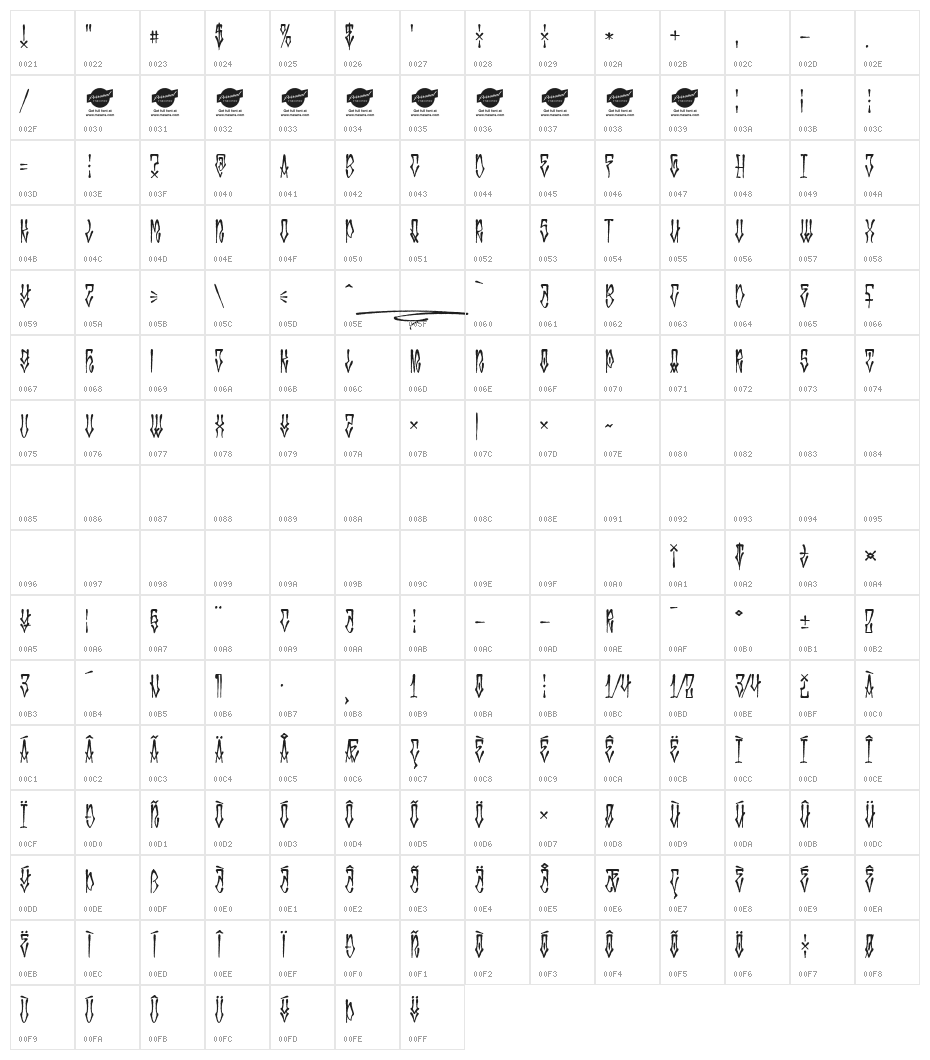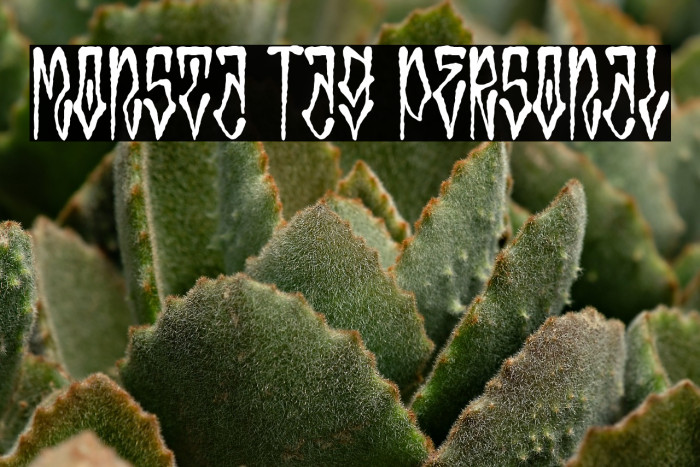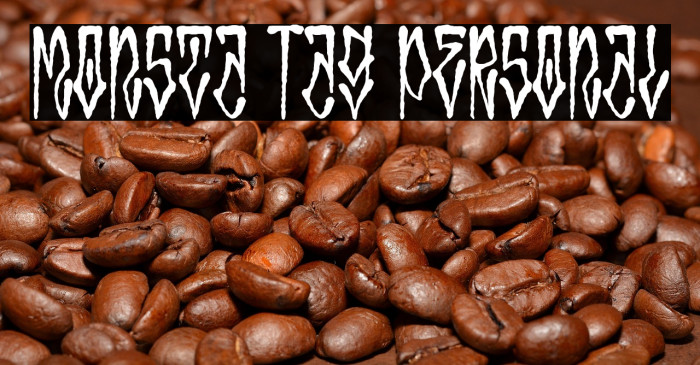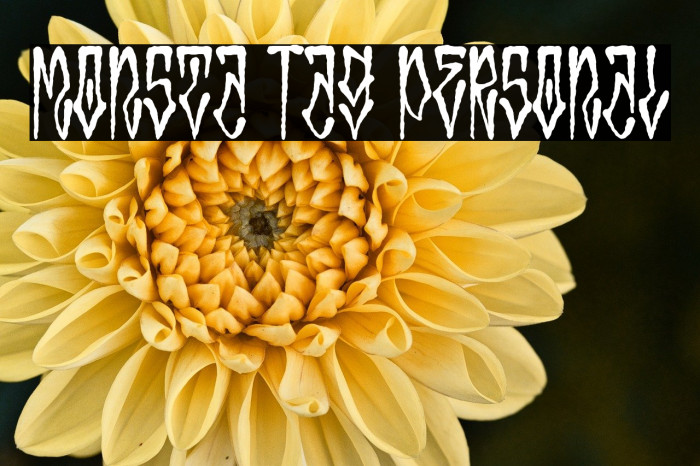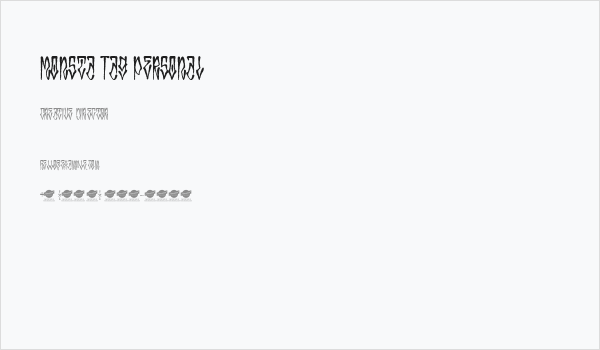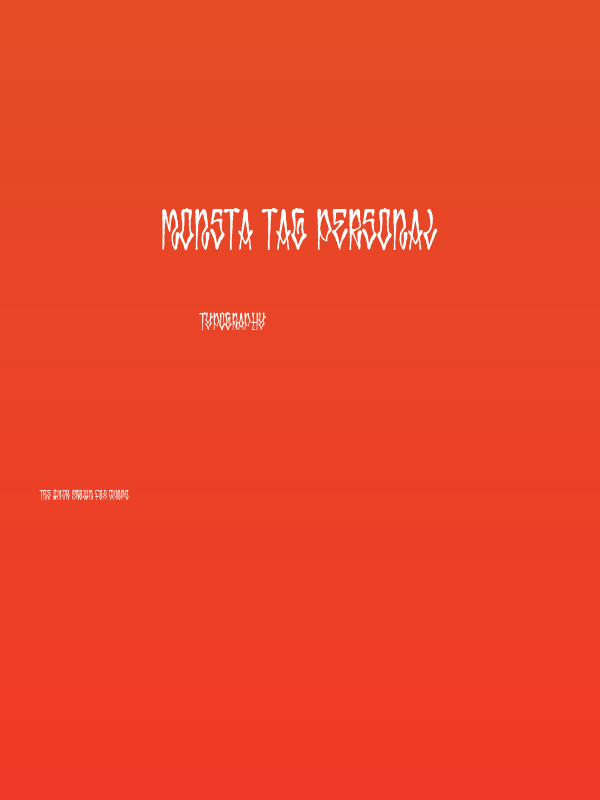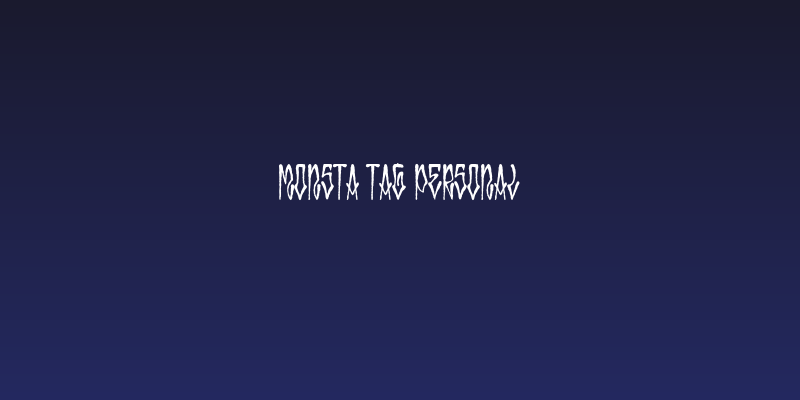
Monsta Tag Personal Font
Monsta Tag Personal Description
A highly stylized, jagged, graffiti-inspired font with sharp, angular strokes and irregular line thickness, evoking a hand-drawn, urban street art aesthetic. The characters are tall and narrow, with exaggerated ascenders and descenders, and a rough, textured appearance.
| Overall Style | Decorative, Urban, Graffiti, Edgy |
| Use Case | Headlines, Logos, Posters, Event Flyers |
| Proposed Projects | Street art posters, music album covers, skateboarding brands, urban event flyers, edgy logo designs. |